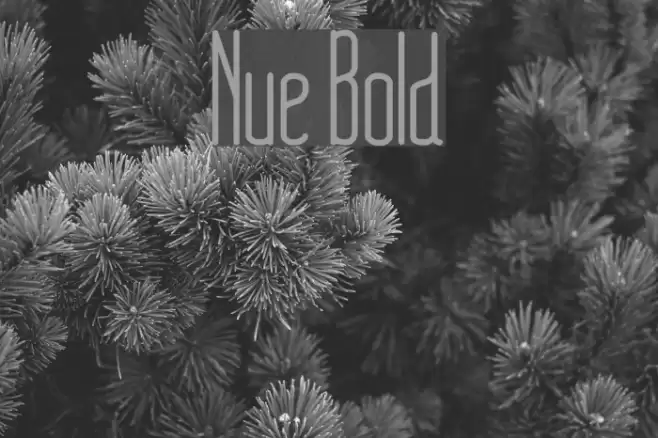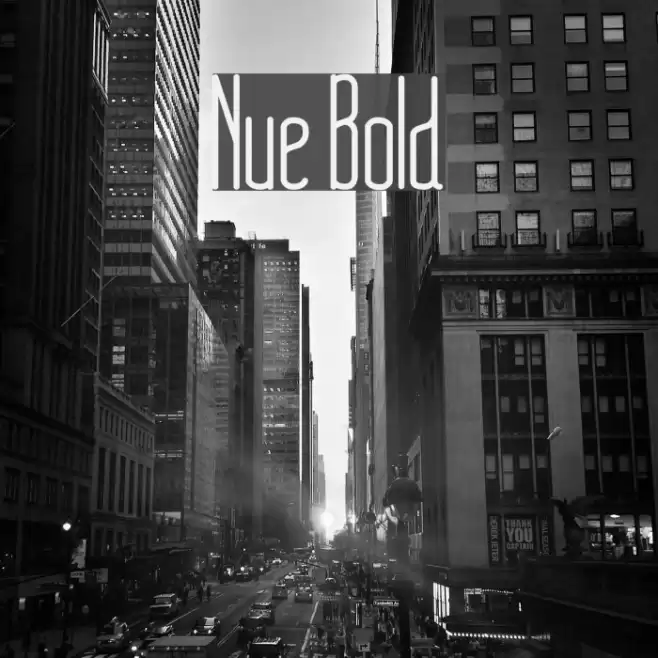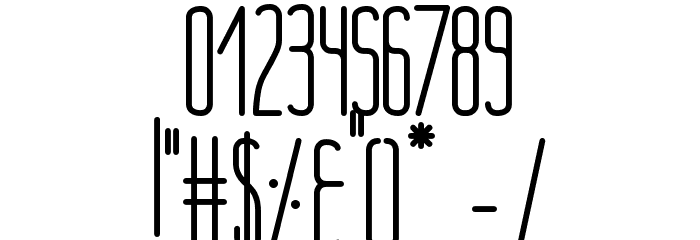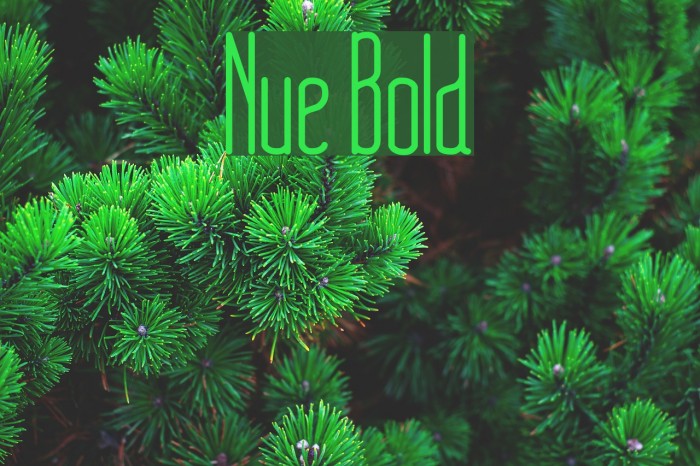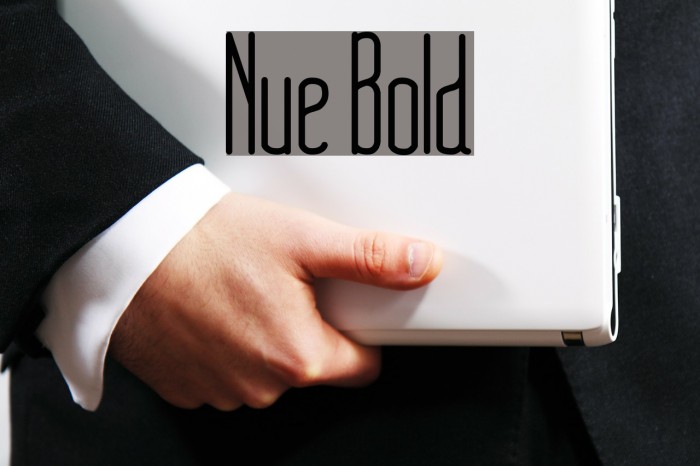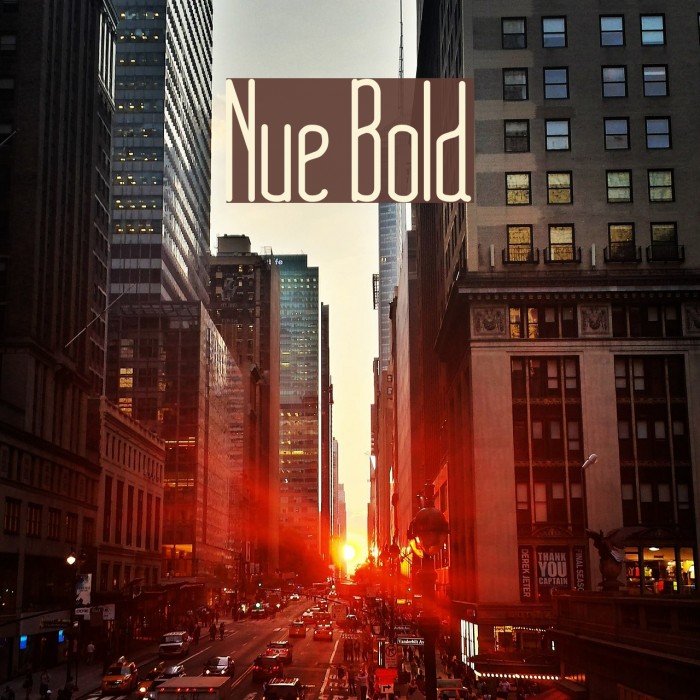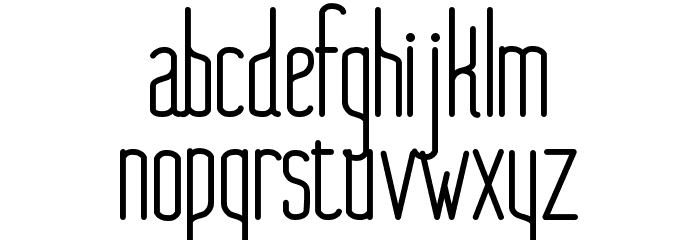
Nue Bold Font
Nue Bold Description
This font features a modern and sleek design with elongated characters and a tall, narrow structure. The uppercase and lowercase letters maintain a consistent height, creating a uniform appearance. The strokes are thin, contributing to a clean and minimalist aesthetic. The numerals are distinct and align well with the overall style, while the special characters are crafted to match the font's elongated and narrow form. This font is ideal for projects that require a contemporary and stylish look, offering a unique blend of elegance and simplicity.
A modern, elongated font with a sleek and minimalist design from Sans Serif fonts.